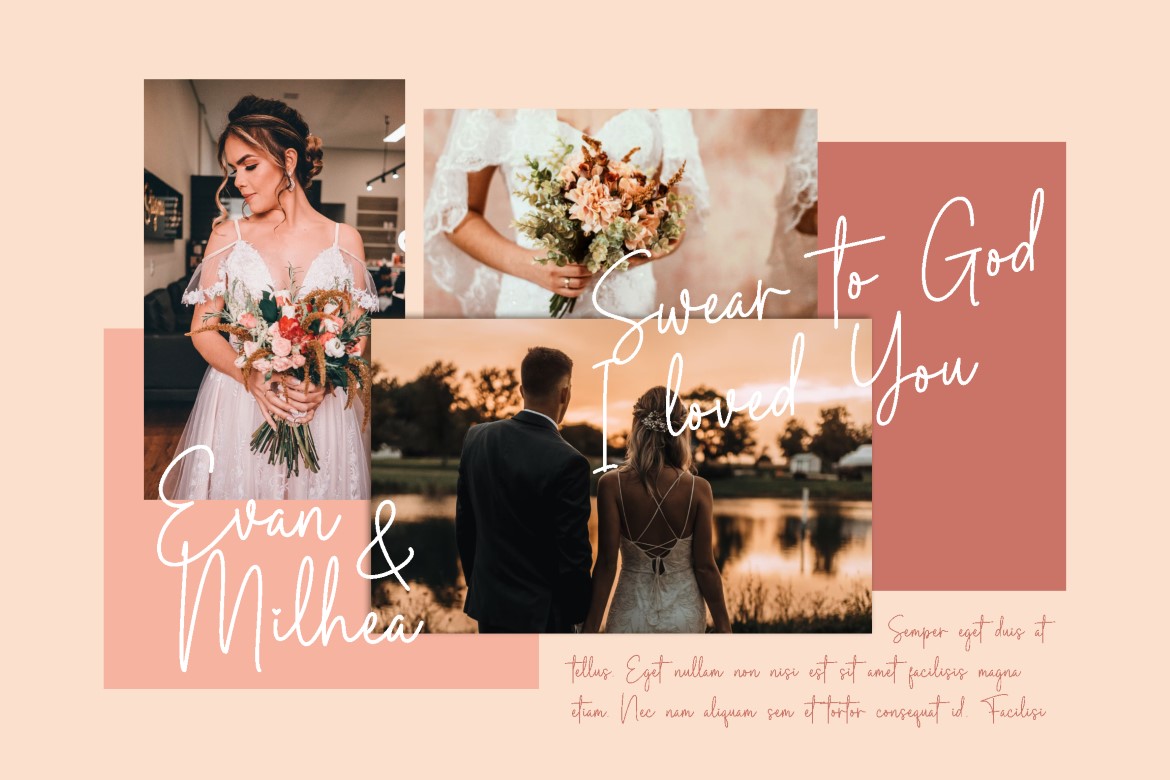
Browny Cakes
Browny Cakes is a fine handwritten script font for bakery names, dessert packaging, and personal stationery.
The thin flowing strokes give short phrases a light, personal appearance. Use strong contrast and enough space around the lettering to retain its delicate details, with a clear companion font for prices, ingredients, or contact information.
Best for
• Bakery identities and cake labels
• Dessert menus and gift packaging
• Invitations and personal stationery